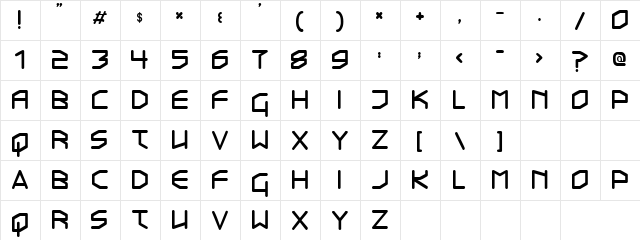
Darling Regular
Design Context for Darling Typeface
Darling is a composed and adaptable typeface that performs quietly and consistently across a wide range of design contexts.